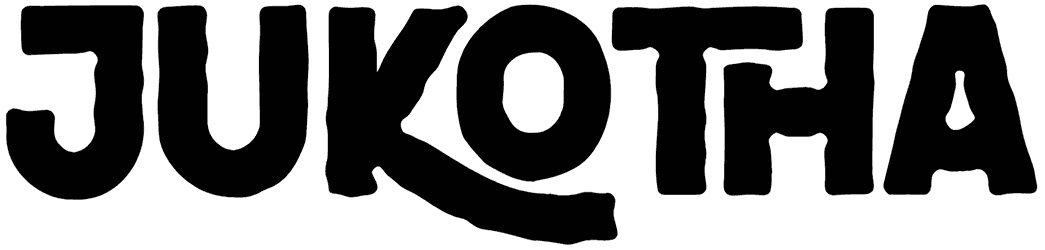
Zawtturee Font
If your design needs classic and smooth words, this camping font would be a captivating choice. The smooth and natural visual of the Zawtturee font can throw some sexy vibe into your layout. Zawtturee doesn’t have any offer for lowercase letters, yet it is going to adorn your café sign in a memorable way.
Designed by: Creatype Studio